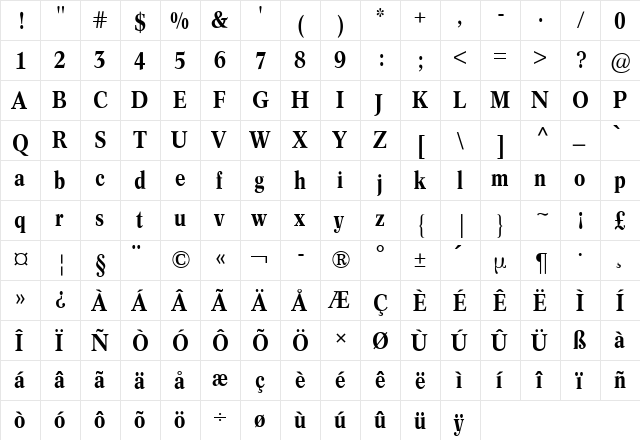
ConcordeCondensedBQ Medium Condensed
Design Context for ConcordeCondensedBQ Typeface
ConcordeCondensedBQ is a composed and adaptable typeface that performs quietly and consistently across a wide range of design contexts. The condensed width makes it efficient for tight spaces without sacrificing legibility.